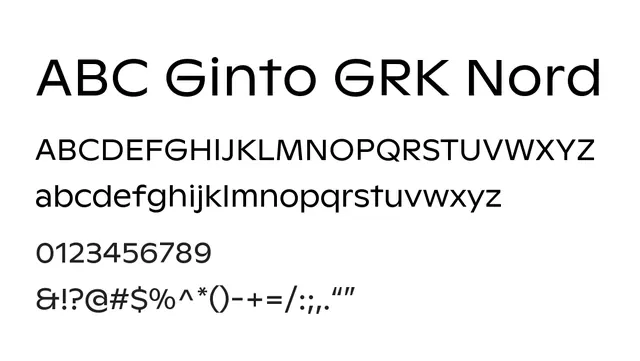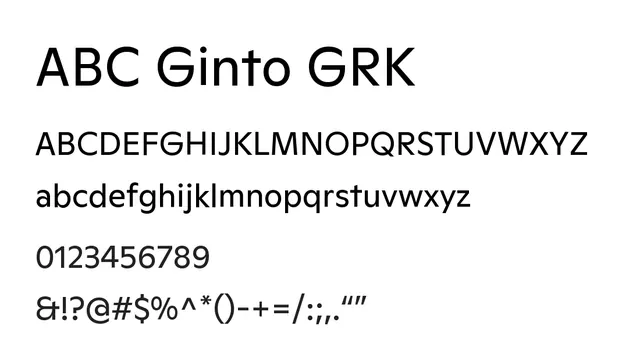
ABC Ginto GRK
A refined neo-grotesque sans-serif with excellent legibility and contemporary proportions, suitable for editorial, UI, and branding applications.
Versatile typeface for headlines, UI design, and body text. The clean geometry and spacious letterforms ensure readability at any size, making it ideal for web and print editorial.
Pair with abc-galapagos-c for geometric display headlines, or combine with a serif face for traditional editorial layouts.